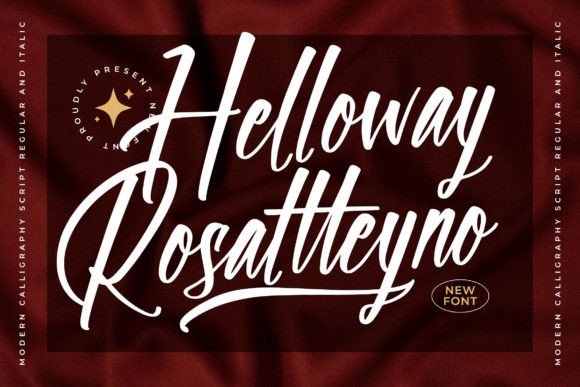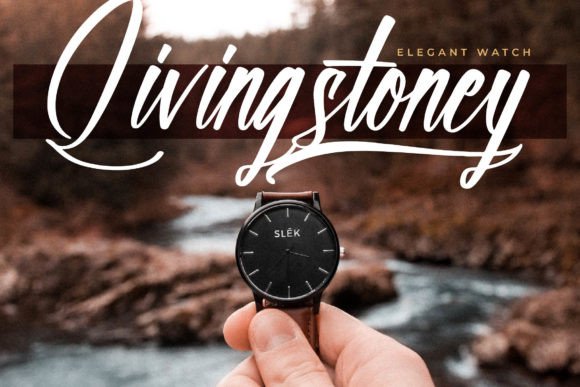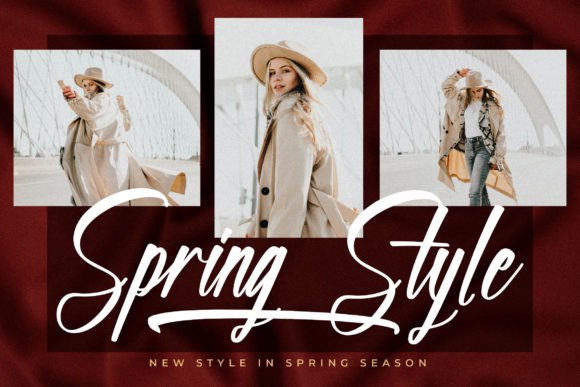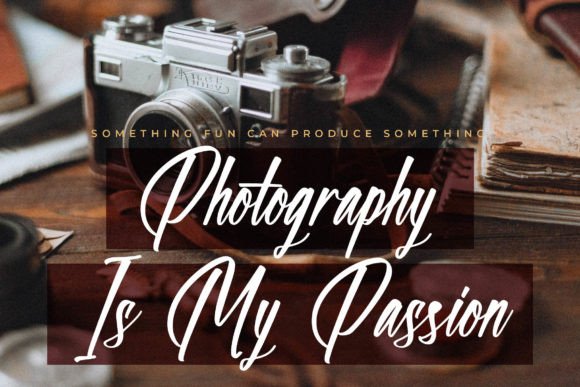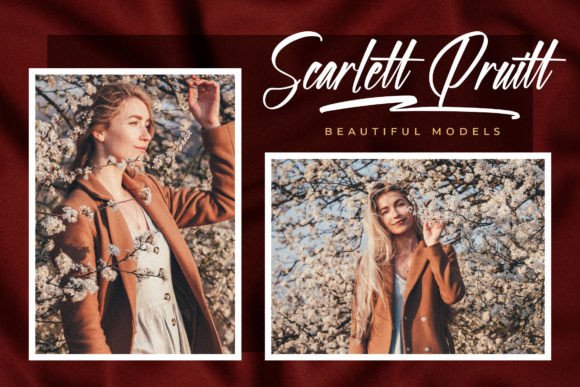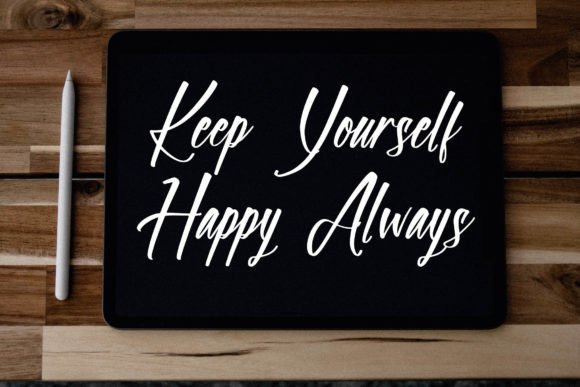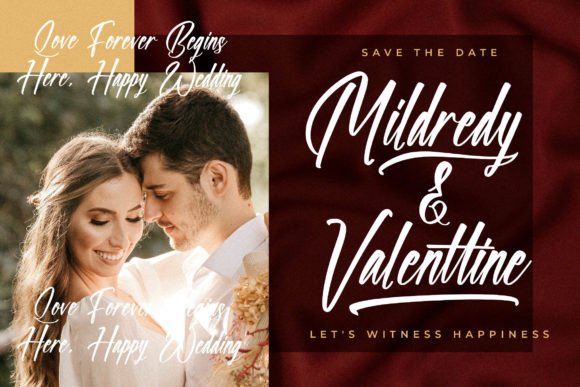
Discover the Magic of Helloway Rosaltteyno Font
Do you ever find yourself sitting in front of a blank canvas, staring at a blank piece of paper, or hovering over a design tool, waiting for inspiration to strike? You’re not alone. Many creatives face this blank slate conundrum, searching for the perfect font to bring their ideas to life. This is where Helloway Rosaltteyno Font comes in – a modern calligraphy script designed to elevate any project and make it truly special.
This beautiful font is not just a pretty face; it’s a versatile tool that can be used for a wide range of applications, from logos and branding projects to homeware designs, product packaging, and more. With Helloway Rosaltteyno Font, you’ll have the freedom to create stunning designs that capture the essence of your brand or personal style.
Helloway Rosaltteyno Font Key Features
- Font Size: The font family includes multiple weights, ranging from Thin to ExtraBold, with corresponding font sizes to cater to various design requirements.
- Resolution: Helloway Rosaltteyno Font is designed to be scalable and legible at resolutions up to 1200 DPI, making it suitable for high-resolution printing and digital displays.
- Unique Characteristics: The font features a unique blend of modern and vintage elements, with distinctive letterforms and subtle texture effects that evoke a sense of elegance and sophistication.
- Language Support: The font family includes comprehensive language support for Latin-based languages, including Western, Central, and Eastern European languages, as well as many non-Latin scripts.
- Font Metrics: Helloway Rosaltteyno Font is carefully crafted to meet the requirements of modern typography, with precise font metrics and kerning to ensure optimal readability and visual appeal.
Helloway Rosaltteyno Font Review
I’ve had the chance to work with the Helloway Rosaltteyno font, and I must say it’s an interesting combination of elegance and playfulness. ✨ The font’s curvaceous lines and rounded edges give it a friendly, approachable feel that’s perfect for projects requiring a softer tone. ✨ The font’s high contrast between thick and thin lines also makes it stand out in certain design contexts. ✨
- Consistency: I found the font to be highly consistent across various font sizes, with minimal degradation in quality.
- Legibility: The font is generally easy to read, even at smaller font sizes.
However, there are some limitations to consider: ⚠️ The font’s playfulness can sometimes make it feel less professional, which may not be suitable for all projects. ⚠️ Additionally, the font’s high contrast may not be ideal for text-heavy designs, as it can be overwhelming to the reader. ⚠️
Overall, I think the Helloway Rosaltteyno font is a solid addition to any designer’s toolkit. While it may not be perfect for every project, it’s a great choice for designs that require a touch of whimsy and personality. With a little creative guidance, this font can help elevate your designs and leave a lasting impression on your audience.
Helloway Rosaltteyno Font: A Practical Application Guide
For best results, use the font in headings or titles to add a touch of elegance to your design.
Use the font to create custom typography elements, such as logos or headings, for a unique and stylish look.
Use the font to add a touch of sophistication to your presentations or documents.
The Helloway Rosaltteyno Font is ideal for:
Creating elegant headings and titles.
Designing custom logos and typography elements.
Adding a touch of sophistication to presentations and documents.
Experimenting with unique typography styles.
Playfair Display is a high-end serif font perfect for luxury branding, high-end publications, and fine art projects. It features elegant connections and refined details, making it an excellent choice for designers seeking a sophisticated look.
Compared to Helloway Rosaltteyno Font, Playfair Display has a more refined and elegant feel, making it suitable for high-end applications. However, it lacks the unique, hand-crafted feel of Helloway Rosaltteyno Font.
Q: What is the recommended font size for Helloway Rosaltteyno?
The recommended font size for Helloway Rosaltteyno varies depending on the intended use and viewing distance. For body text, we recommend a minimum font size of 12pt, while for headings and titles, a minimum font size of 18pt is recommended. You can adjust the font size to suit your design needs, but keep in mind that smaller font sizes